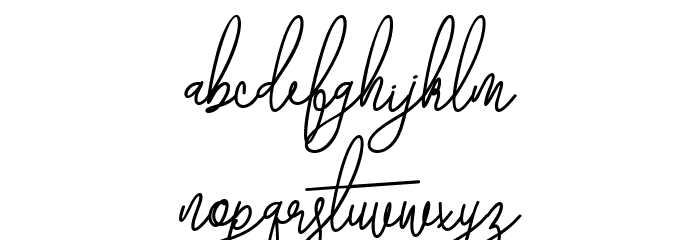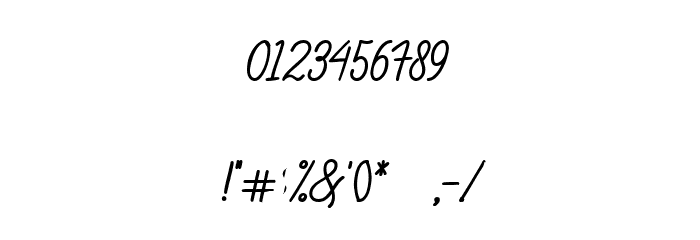
VanBastenBold-Bold Font
This font features an elegant, flowing script style that combines both uppercase and lowercase letters with a sense of fluidity and grace. The uppercase letters are characterized by their tall, looping ascenders and descenders, giving them a sophisticated and airy appearance. The lowercase letters maintain a consistent stroke width, enhancing readability while preserving the font's decorative nature. Numbers and special characters are integrated seamlessly, maintaining the overall aesthetic. This font is perfect for projects that require a touch of elegance and sophistication, such as wedding invitations, formal event branding, or high-end product packaging.
An elegant, flowing script font with tall ascenders and consistent stroke width.
- Font: VanBastenBold-Bold
- Proposed Projects: Ideal for wedding invitations, formal event branding, and luxury product packaging.
- Category: Script
- Overall Style: Elegant
- Use Case: Logos, Invitations, Branding